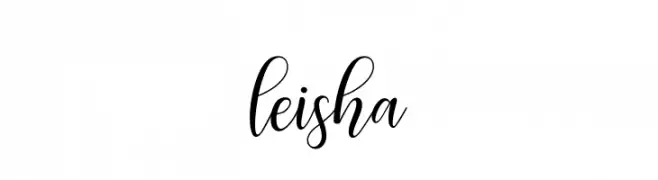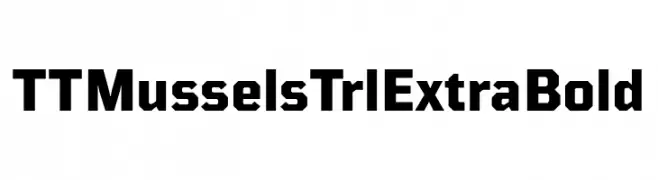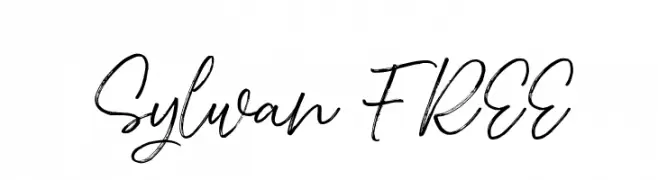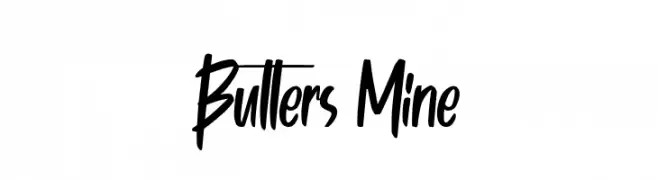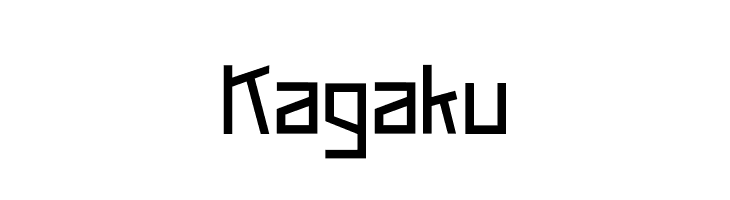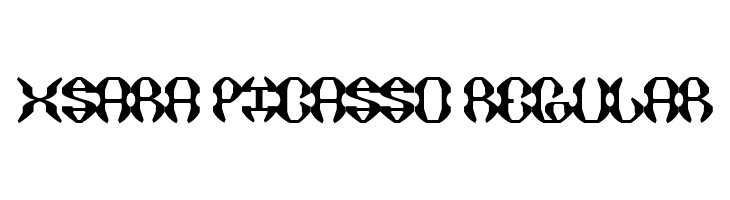
An elegant script font with flowing, interconnected letters and decorative swashes.
A playful, hand-drawn font with tall, narrow letters and a whimsical style.
An ornate, decorative font with intricate swirls and vintage calligraphic style.
A bold, geometric font with sharp edges and a strong presence.
Casual handwritten script with varying stroke thickness.
A bold, expressive handwritten font with dynamic strokes and playful curves.
A bold, geometric stencil font with a modern, industrial feel.
A bold, decorative font with intricate details and high contrast.
A dynamic, expressive handwritten font with fluid, continuous strokes.
A lively, flowing script font with elegant curves and connected strokes.